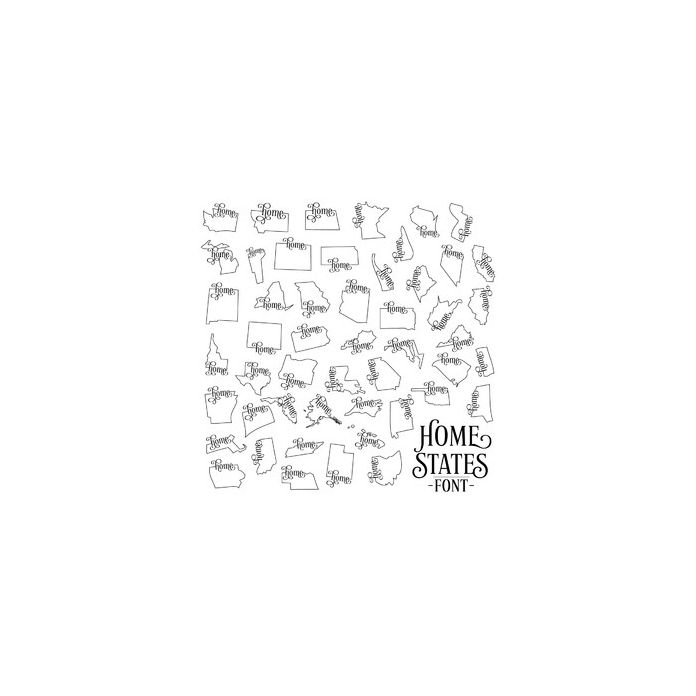
Home States Dingbat Font. Contains all 50 states with Home wording on each one. All allocated to upper and lower case and can be accessed via glyphs. My other fonts can be found here in the Silhouette store!